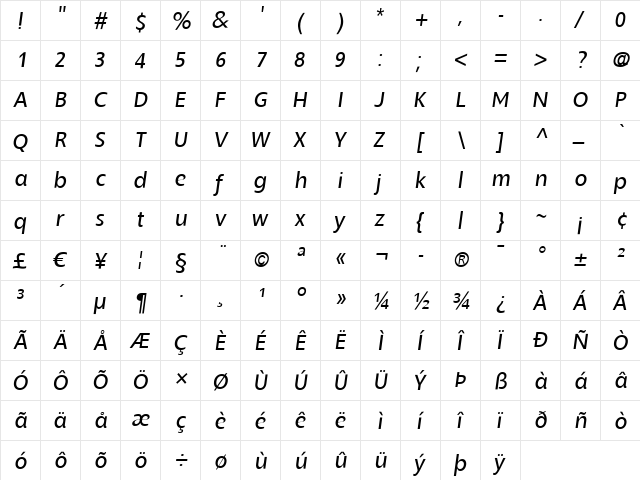
Slippy Italic
Design Context for Slippy Typeface
Slippy takes a measured approach to typography — its balanced proportions and neutral character make it a reliable workhorse for both digital and print work. Its italic angle brings a sense of urgency and motion to the letterforms.
Pro Tip: Use Slippy for emphasis, pull quotes, and subheadings where its slanted energy can add rhythm to the layout.